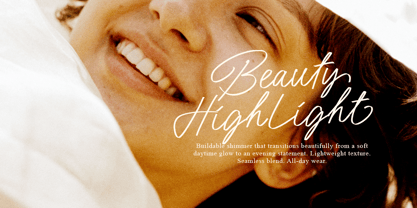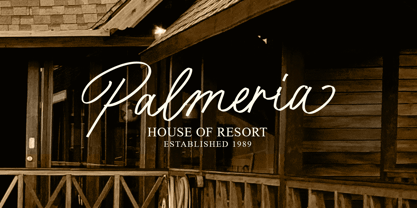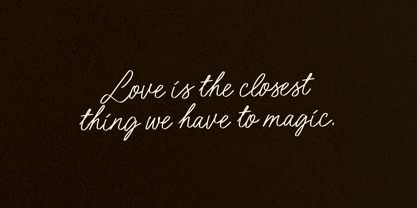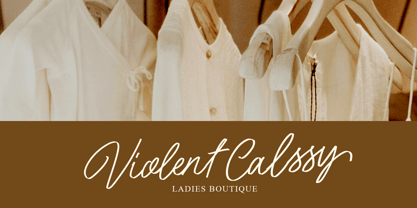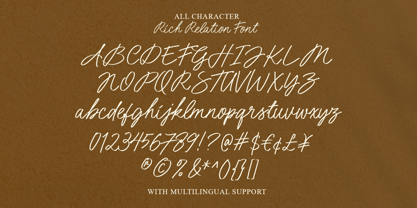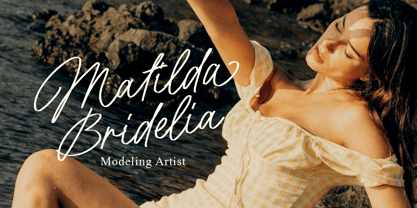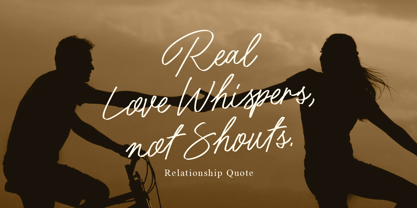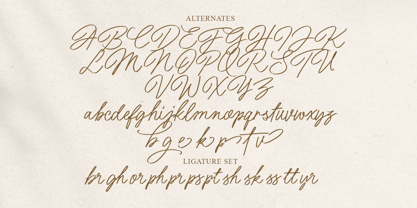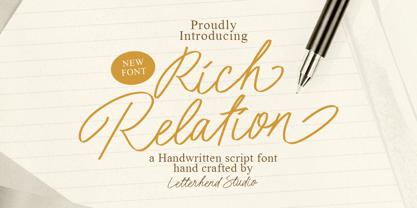
Rich Relation
by Letterhend
The Rich Relation Font Family was designed by Hendry Juanda and published by Letterhend. Rich Relation contains 1 styles. More about this family
Rich Relation is a graceful handwritten script font that conveys warmth and personal touch. Its elegant curves and natural strokes make it ideal for wedding invitations, branding, greeting cards, product packaging, and designs seeking sincerity and sophistication. Whether for headlines or delicate signatures, Rich Relation adds intimacy and style. Features include uppercase and lowercase letters, numbers, punctuation, alternates, ligatures, multilingual support, and PUA encoding.
Designers: Hendry Juanda
Foundry: Letterhend